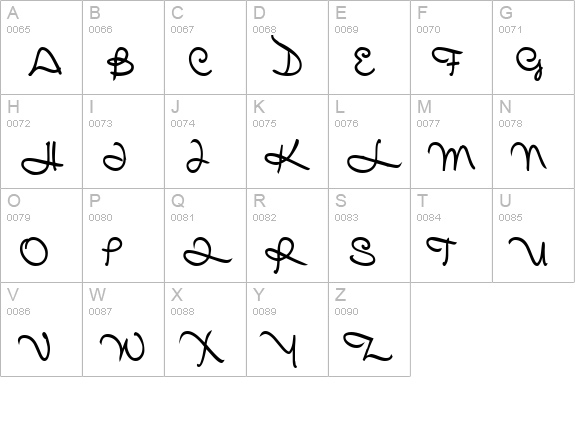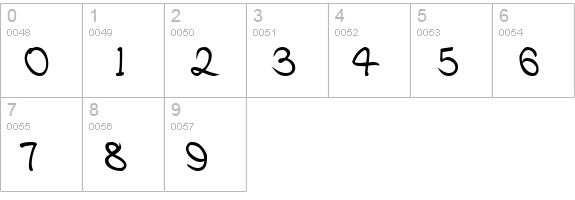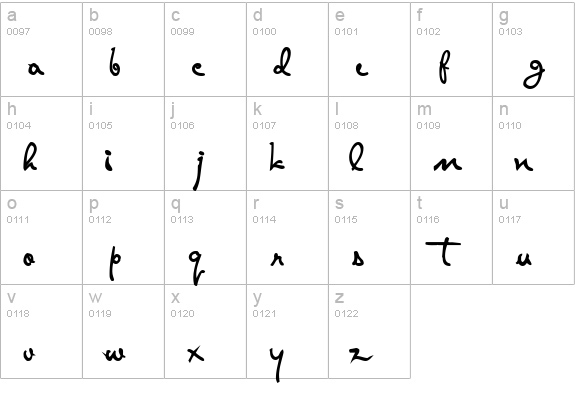
AlicoScriptSSK Bold Font Details
AlicoScriptSSK Bold is a strong, high-contrast variant in the AlicoScriptSSK typeface family \xE2\x80\x94 well suited to headlines, attention-grabbing titles, and strong calls-to-action.
AlicoScriptSSK Bold is a stunning and bold script font that exudes elegance and sophistication. With its distinct and eye-catching design, this font is perfect for creating impactful designs and projects. The bold strokes and flowing curves of AlicoScriptSSK Bold make it ideal for headings, branding, invitations, and more. The best part? AlicoScriptSSK Bold is available for free download at FontsMarket.com. This means you can easily access this beautiful font and use it in your projects without any cost. Don't miss out on the opportunity to elevate your designs with the striking AlicoScriptSSK Bold font - download it for free today!